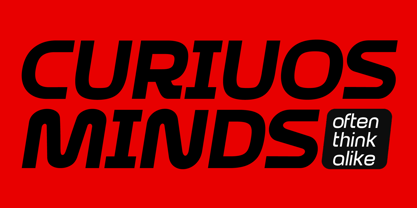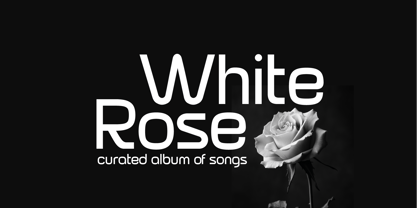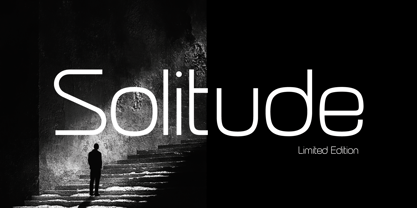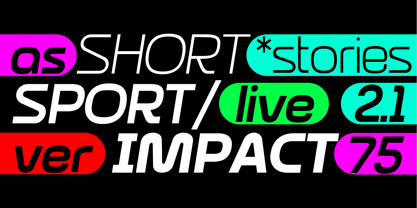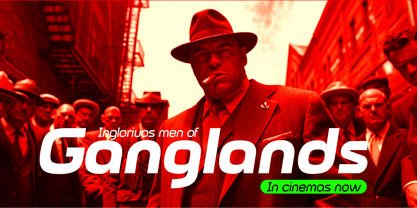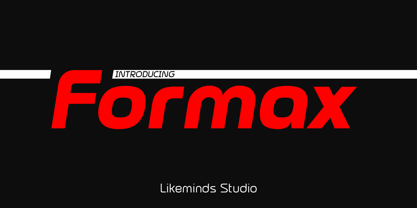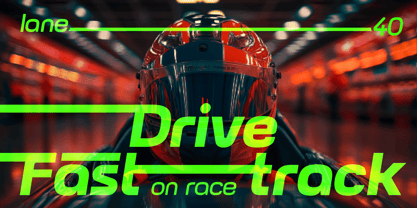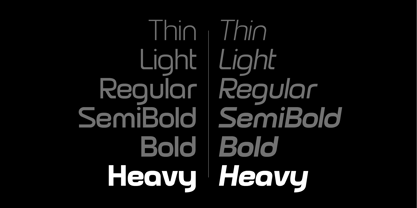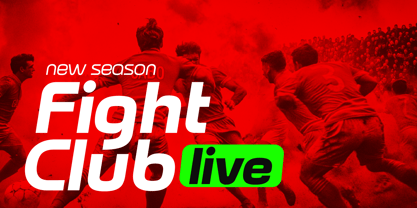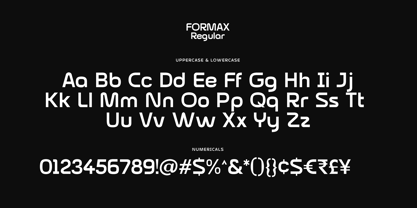
Formax
by Likeminds Studio
The Formax Font Family was designed by Abhya Chawla and published by Likeminds Studio. Formax contains 14 styles and family package options.
Formax is a high-energy, dynamic typeface engineered for motion, clarity, and modern expression. Its letterforms blend sharp geometry with fluid movement, giving every character a sense of forward momentum. Bold strokes expand confidently while clean curves create an elastic, kinetic rhythm across the line. Designed for brands and visuals that evolve, Formax adapts effortlessly—from large cinematic titles to sleek digital interfaces. Whether static or animated, the type carries a living, responsive presence, making it perfect for key art, tech identities, motion graphics, and expressive storytelling. Formax doesn’t just communicate words, it transmits velocity, innovation, and intent.